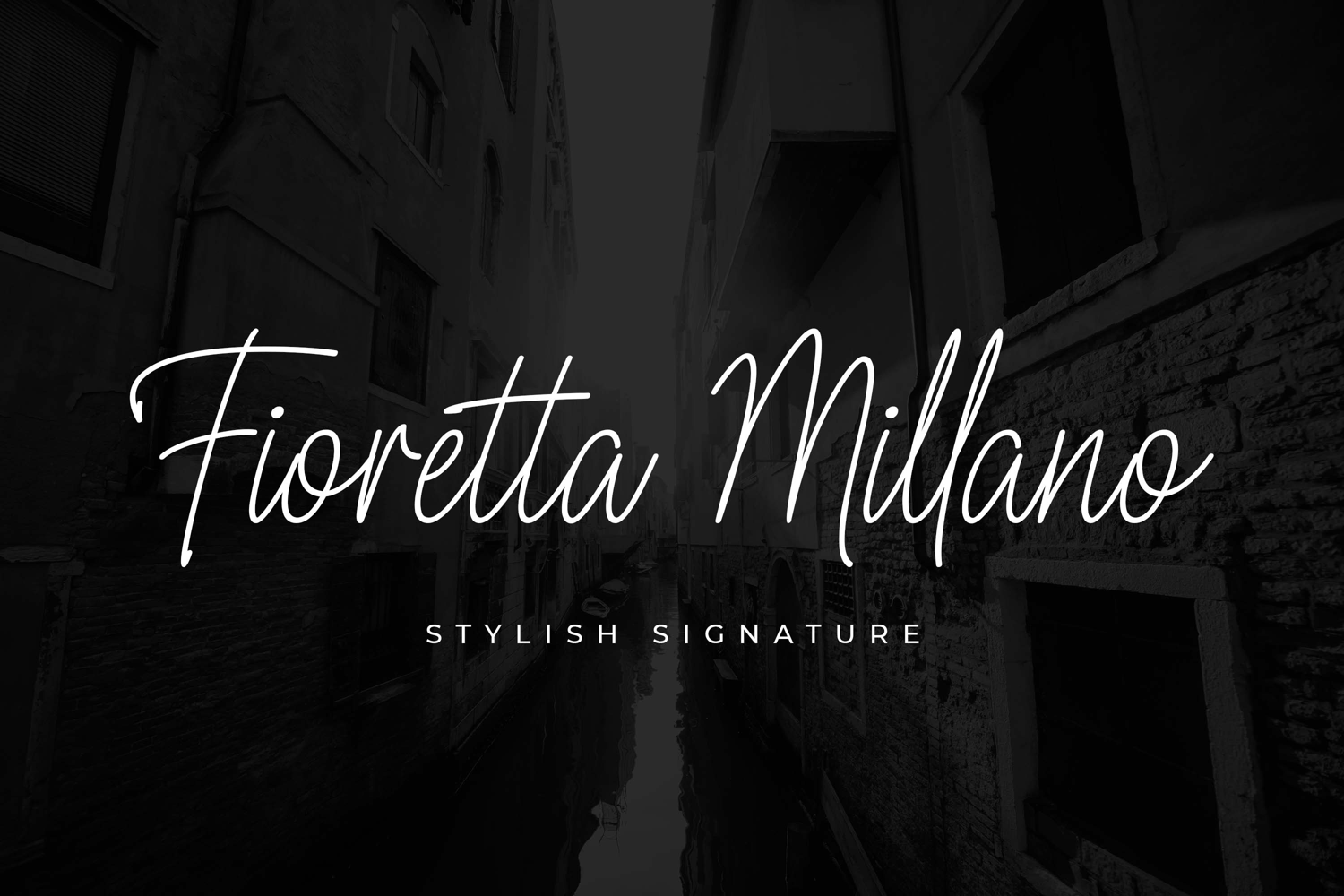
Fioretta Millano - Stylish Signature
Fioretta Millano – Stylish Signature and classy style, this font is great for your creative projects such as watermark on photography, and perfect for logos & branding, photography, invitation, watermark, advertisements, product designs, stationery, wedding designs,label, product packaging, special events or anything that need handwritting taste.